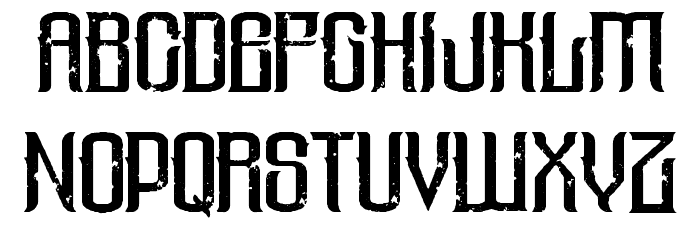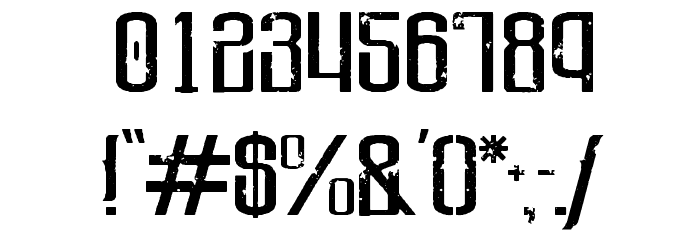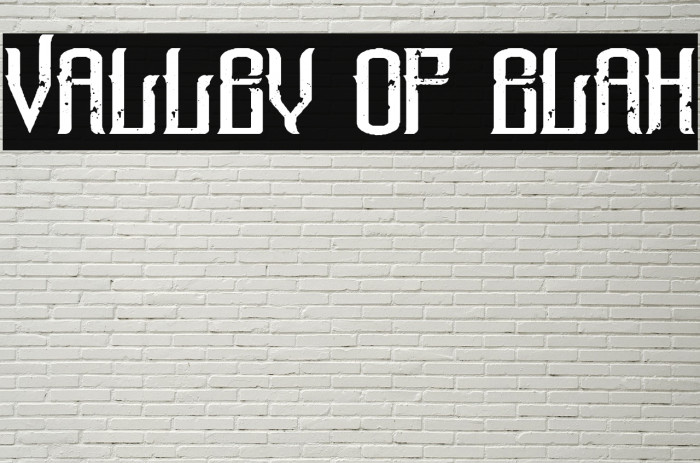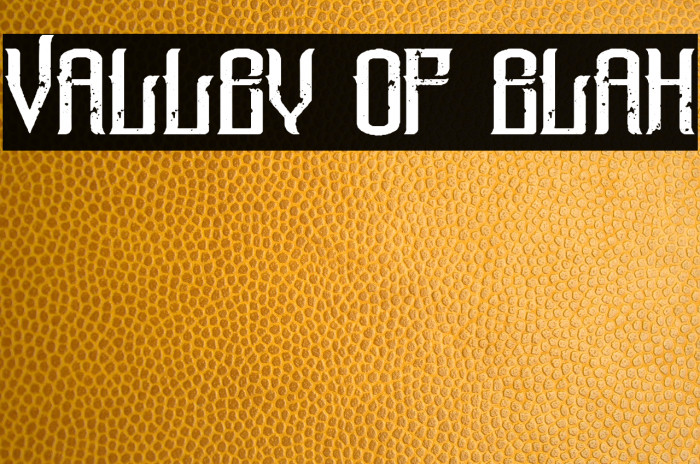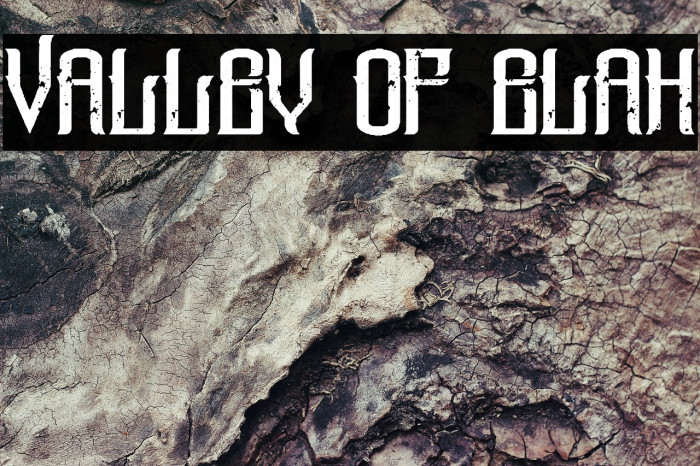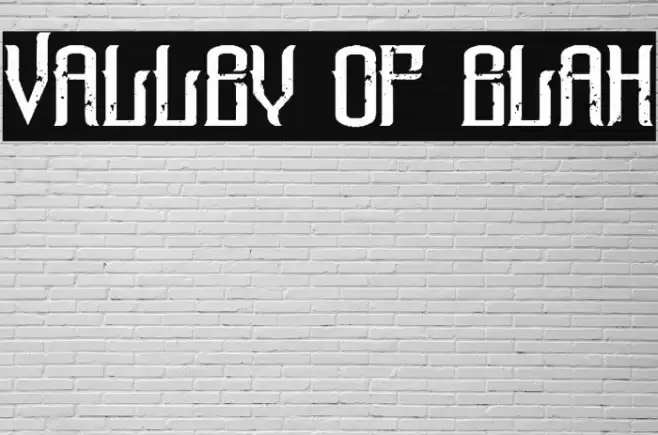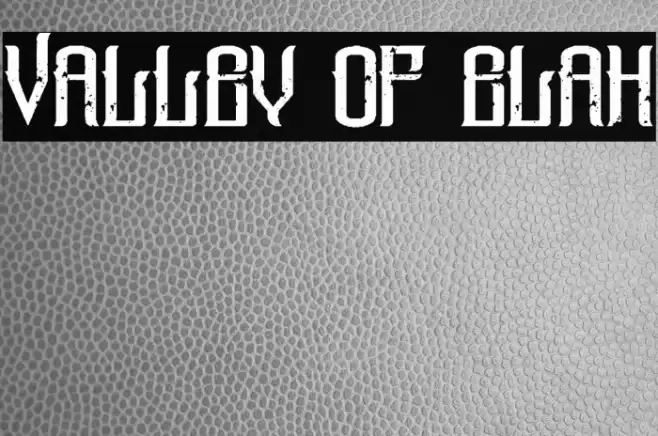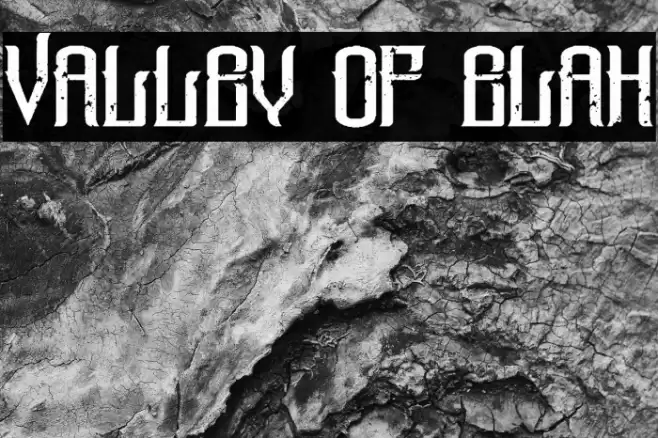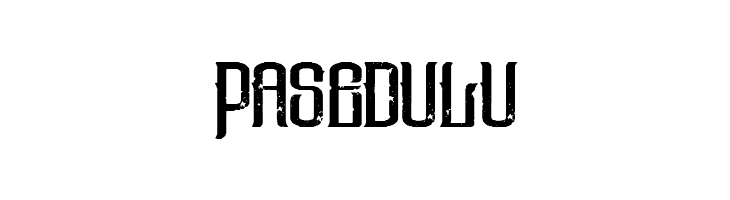
Valley Of Elah Font
This font features a rugged, distressed appearance with a bold and impactful style. The characters are tall and narrow, with a slightly condensed width that gives them a striking presence. The texture of the font is rough, with intentional imperfections that add a vintage, worn-out feel. The uppercase letters are consistent in height, while the lowercase letters maintain a similar style, ensuring uniformity across the text. Numbers and special characters follow the same distressed aesthetic, making this font ideal for projects that require a gritty, industrial look.
A bold, distressed font with a rugged, vintage appearance.
- Proposed Projects: Ideal for posters, album covers, branding for edgy products, or any design needing a bold, industrial feel.
- Overall Style: Vintage